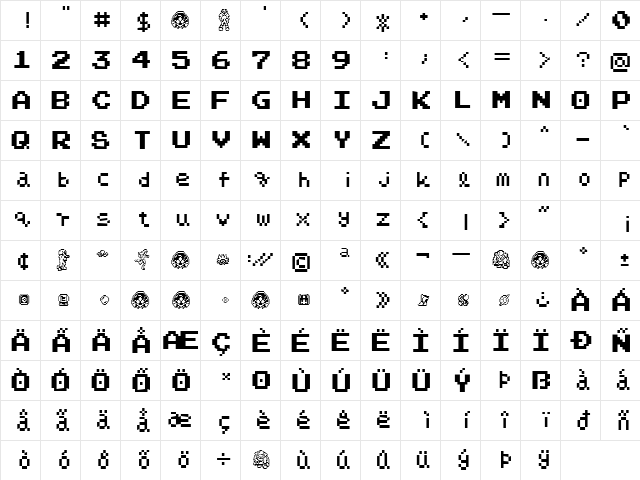
NARPASSWORD00000 fixed.width Regular
Design Context for NARPASSWORD00000 fixed.width Typeface
NARPASSWORD00000 fixed.width is a composed and adaptable typeface that performs quietly and consistently across a wide range of design contexts.